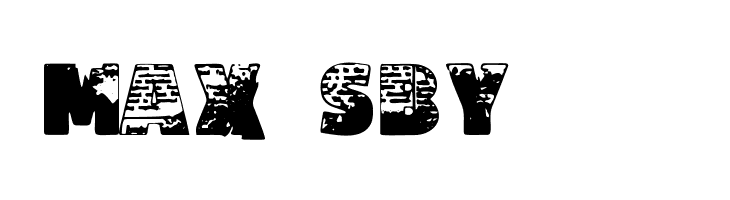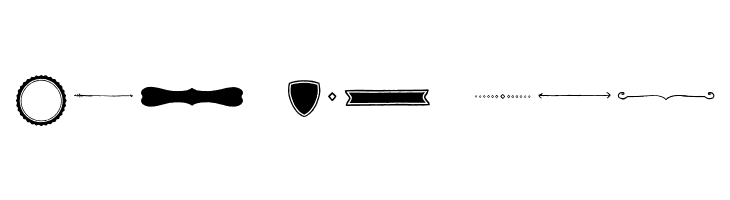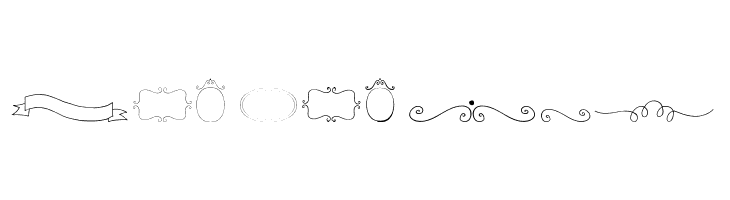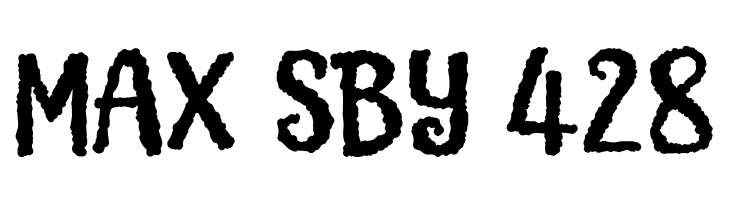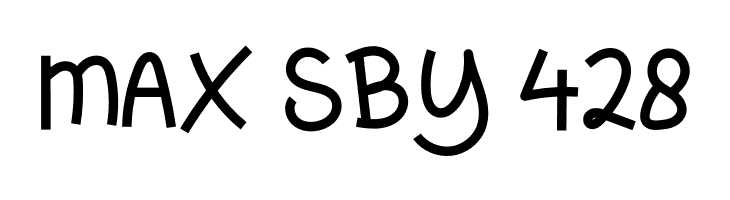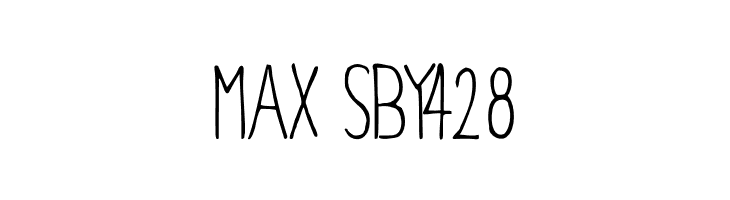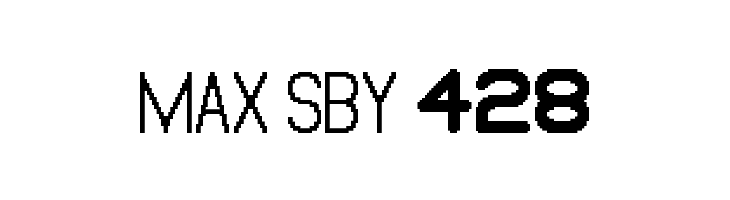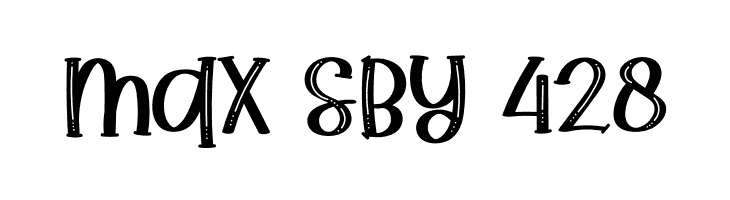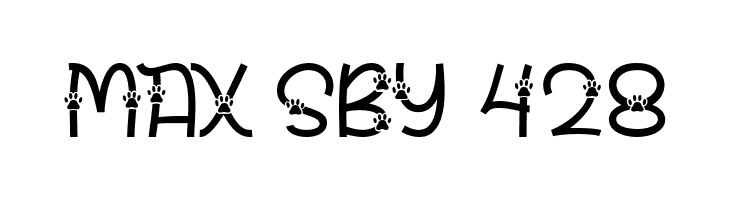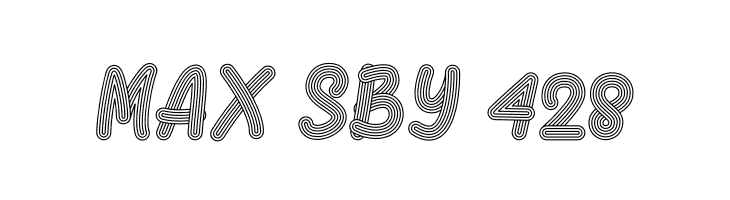
A bold, distressed font with a grunge, urban aesthetic.
A bold, textured, and playful font with a hand-drawn aesthetic.
A playful, handwritten font with bold, rounded strokes and a casual, friendly style.
A playful, hand-drawn font with decorative embellishments and a whimsical style.
A playful, bold font with a hand-drawn, whimsical style.
A playful font with paw print accents, perfect for whimsical and animal-themed designs.
A playful, hand-drawn font with rounded edges and a whimsical style.
A playful, noodle-inspired font with bold, intertwined strokes and a decorative style.
A bold, geometric font with a modern and futuristic design.
A bold, geometric font with a futuristic and industrial design.
A rugged, distressed font with a vintage, hand-crafted look.
A bold, angular font with a geometric and hand-crafted appearance.
A bold, hollow font with geometric and industrial elements.
A bold, three-dimensional font with a playful, comic book style.
A delicate, flowing handwritten font with interconnected letters and thin strokes.
A bold, italic font with a modern and dynamic style.
A modern, geometric sans-serif font with excellent readability.
A modern outline font with geometric and structured letterforms.
A modern, italicized font with sleek curves and a dynamic style.
A bold, modern sans-serif font with clean lines and excellent readability.
A modern sans-serif font with rounded edges and a friendly appearance.
A playful, rounded font with bold, smooth curves and a casual, handwritten feel.
A bold, brush-style font with a dynamic, handwritten appearance.
A playful, handwritten font with tall, narrow letters and rounded edges.
A bold, playful handwritten font with smooth, rounded characters.
A dynamic and elegant script font with flowing, cursive letterforms.
A graceful script font with elegant, flowing curves and calligraphic style.
A playful, bold font with rounded, thick strokes and a whimsical style.
A playful, hand-drawn font with rounded edges and candy-themed glyphs.